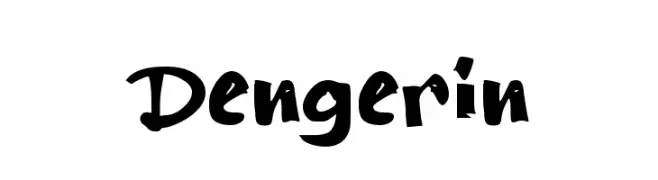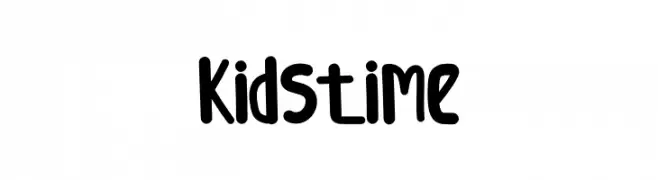
A bold, playful handwritten font with thick, rounded strokes.
A bold, playful, hand-drawn font with dynamic, irregular characters.
A playful, hand-drawn font with rounded, bold characters.